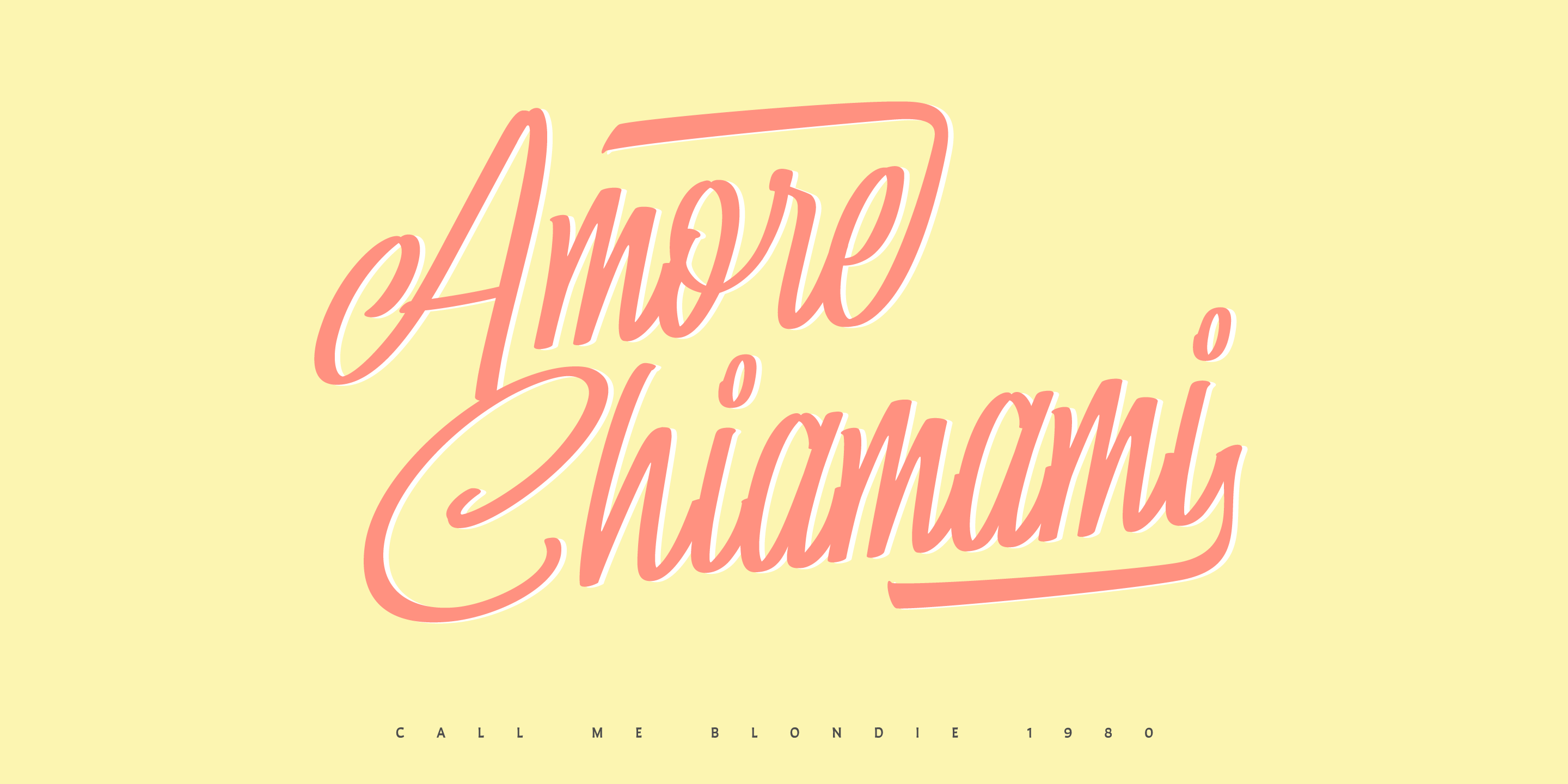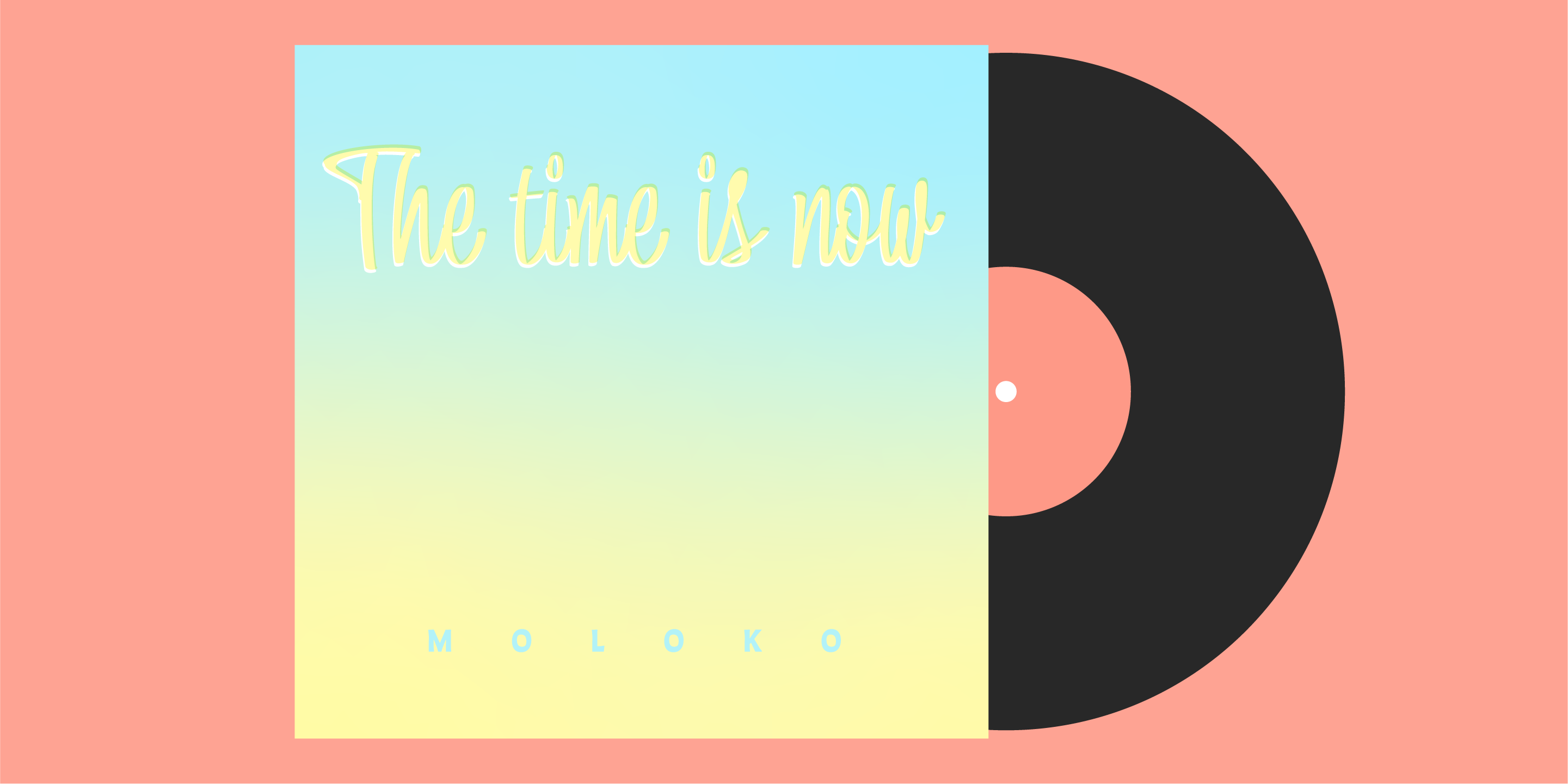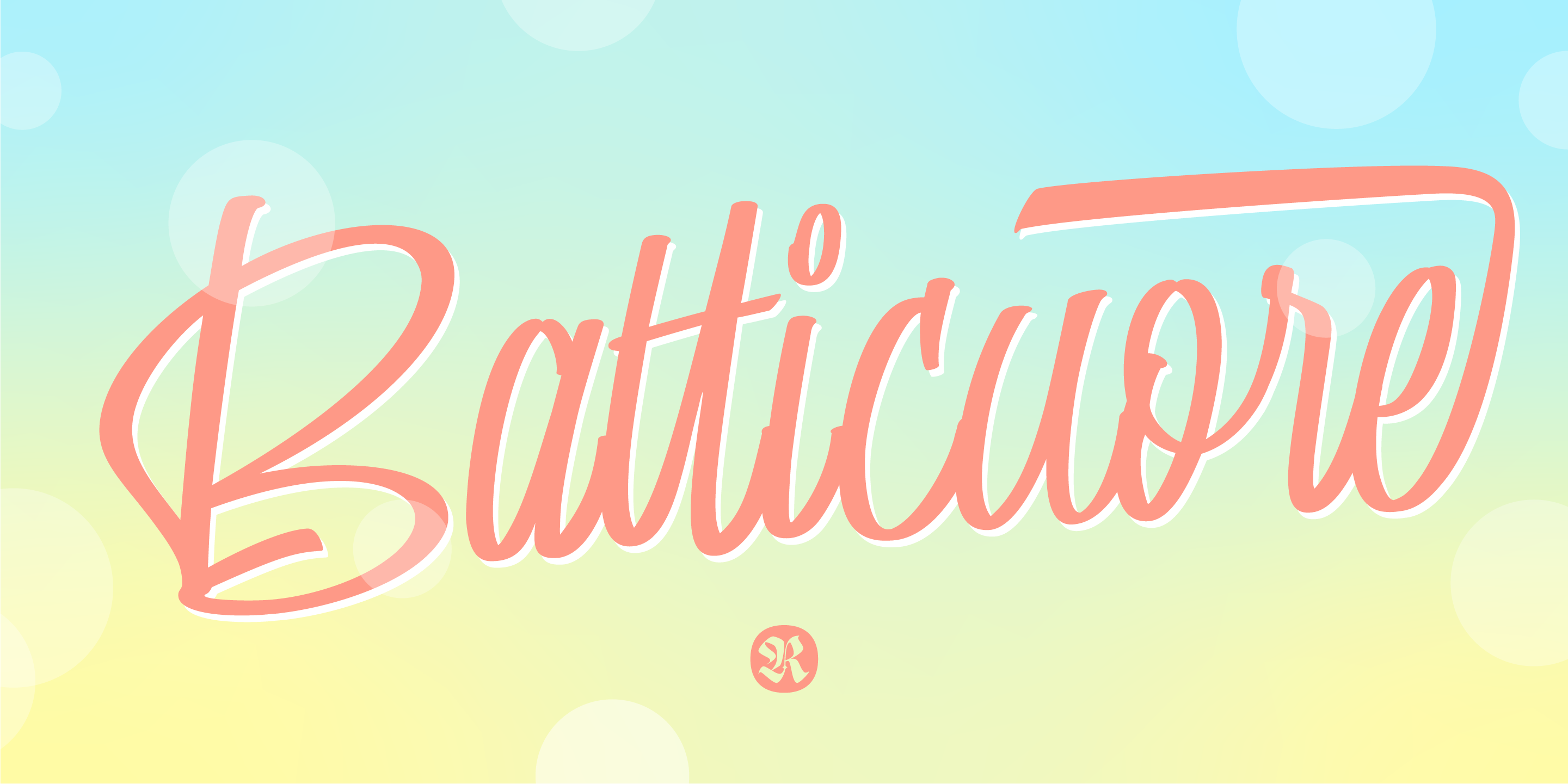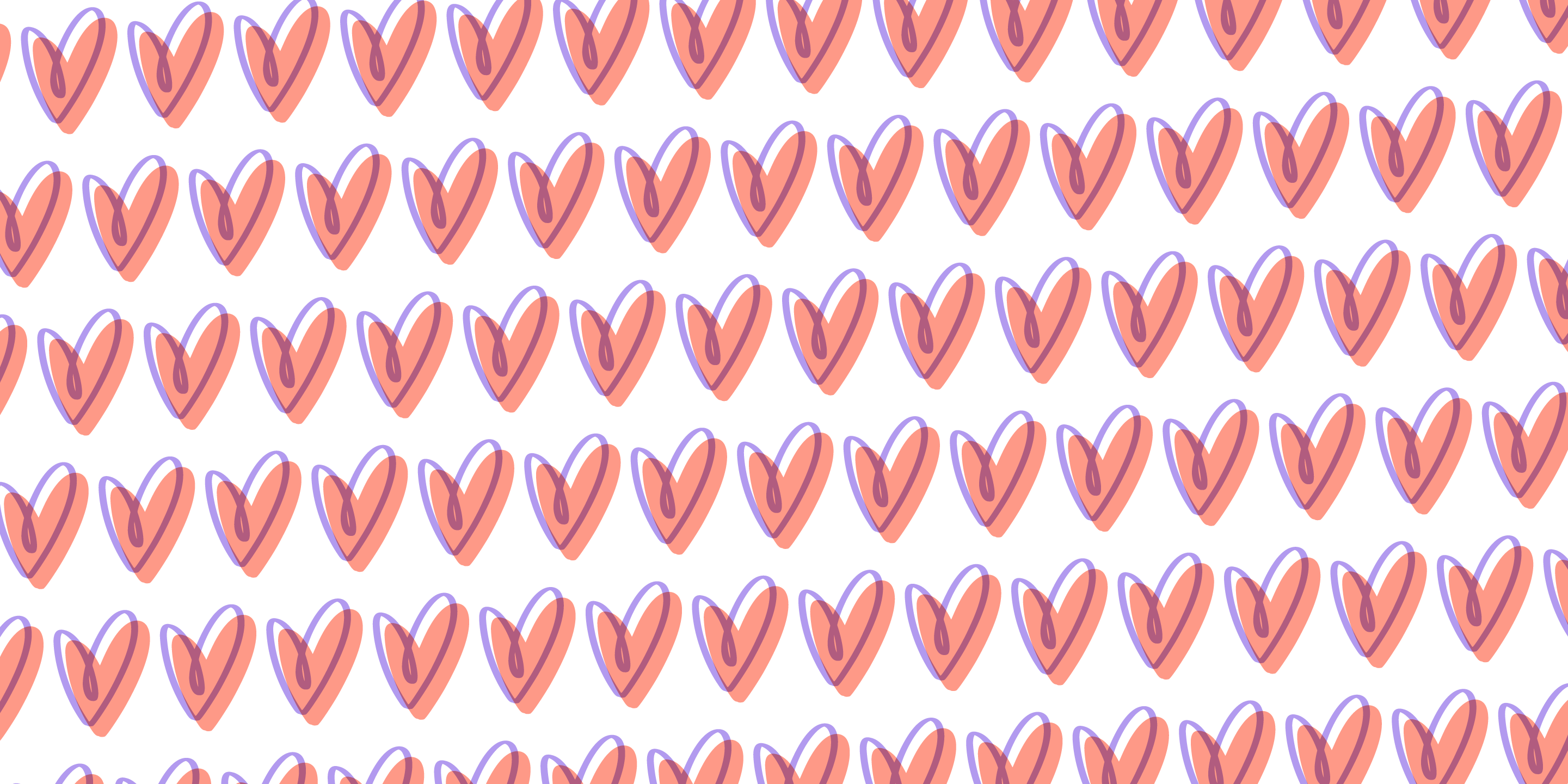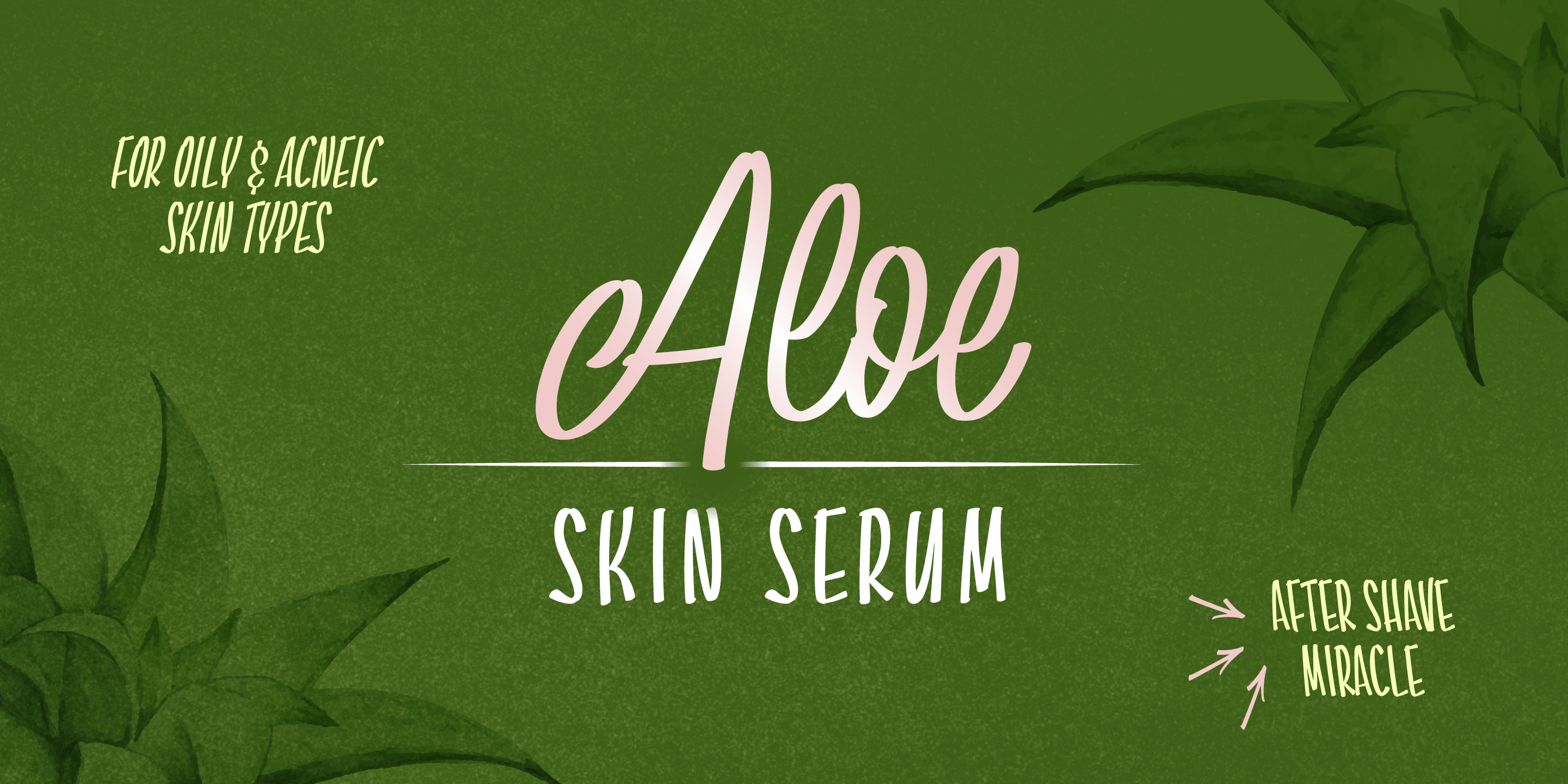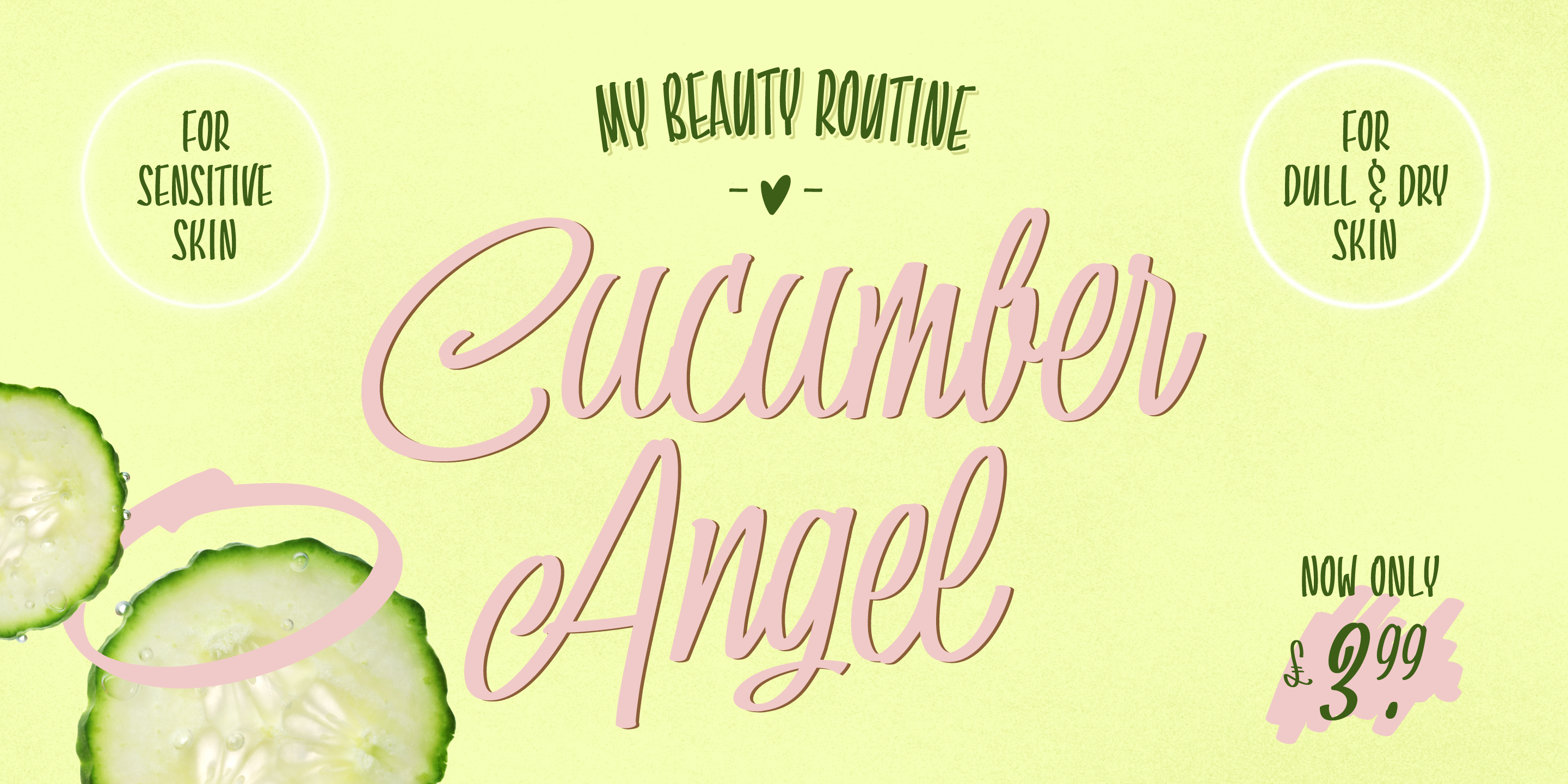
Batticuore
Regular
Caps Regular
Slanted
Caps Slanted
Backslanted
Caps Backslanted
Dynamic brush script
Batticuore
Designed by Resistenza Type FoundryBatticuore means “heartbeat” in Italian, a passional font family inspired by brush lettering should definitely be named with a powerful name like this.
Batticuore provides two variants, Regular and caps. Both scripts are based on a brush strokes with a little contrast.
A large set of ligatures and alternates accessible through opentype are included.